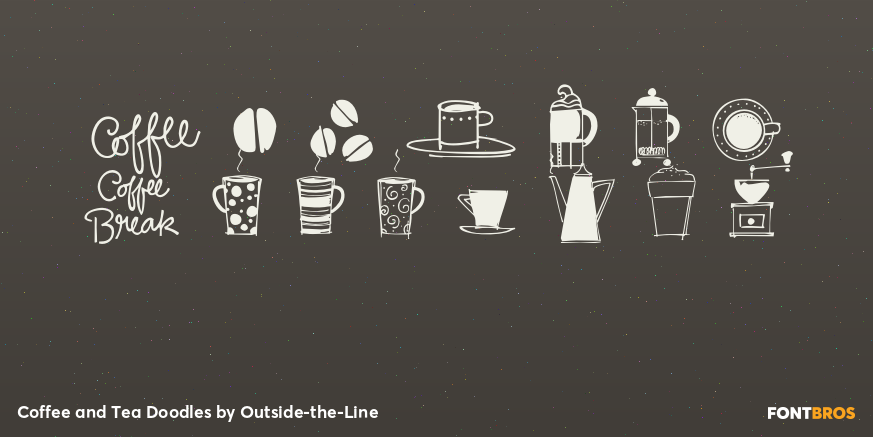
Coffee and Tea Doodles
Font Family by Outside-the-Line
Coffee and Tea Doodles is a font of coffee and tea things - beans, cups, drinks, tea bag, iced tea, tea sets, etc. Perfect set of clip art for coffee or tea shop menus, ads and invitations. Includes scripted words that include "coffee", "tea", "coffee break" and "tea for 2".